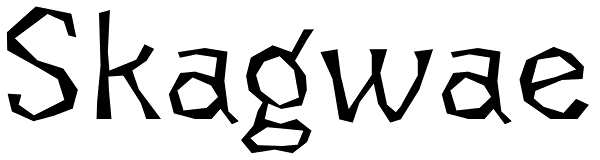
Skagwae
The characters of Skagwae have no curves, just straight line segments. The letter shapes themselves are fairly standard, but the choppy lines used to construct them give the font a crude, unfinished look. Skagwae-Mono is similar, but monospaced...
Skagwae Mono
Skagwae